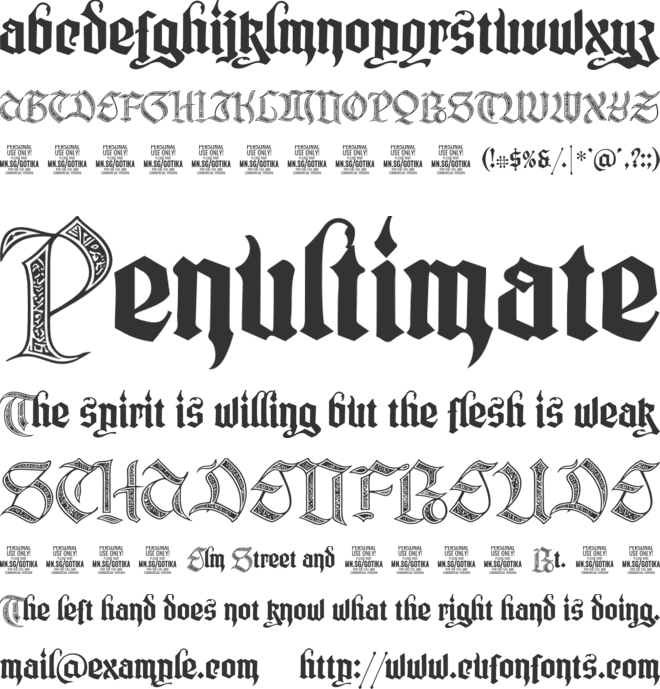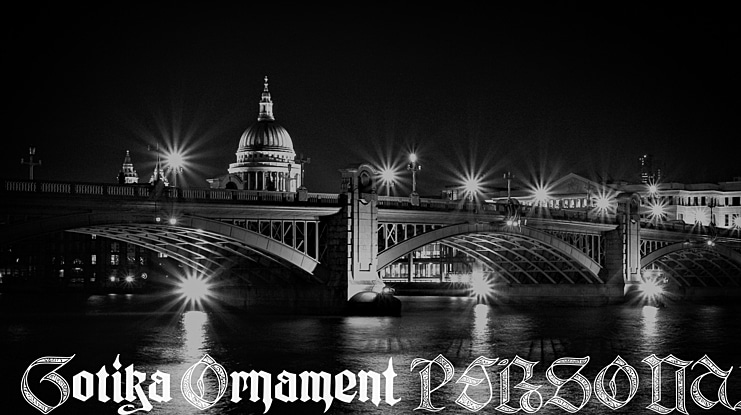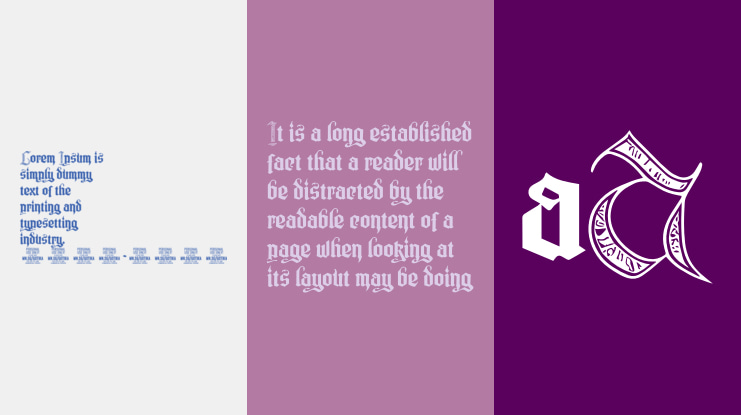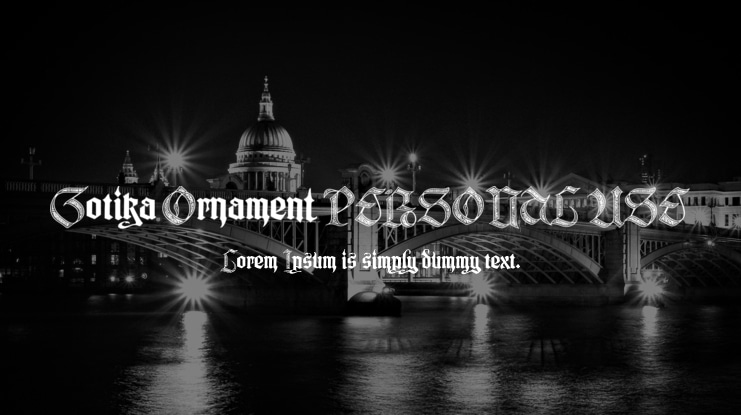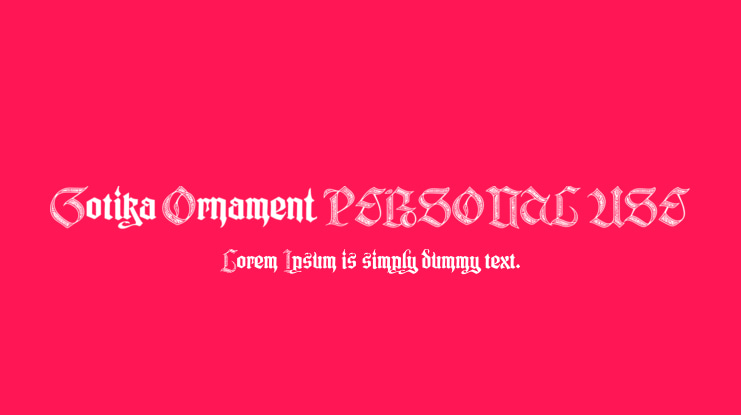
Gotika Ornament PERSONAL USE Font
Gotika Ornament is a decorative font by Mans Greback that combines the beauty of medieval design with modern flair. Inspired by the intricate floral patterns and designs of the Middle Ages, this typeface is perfect for historic projects.